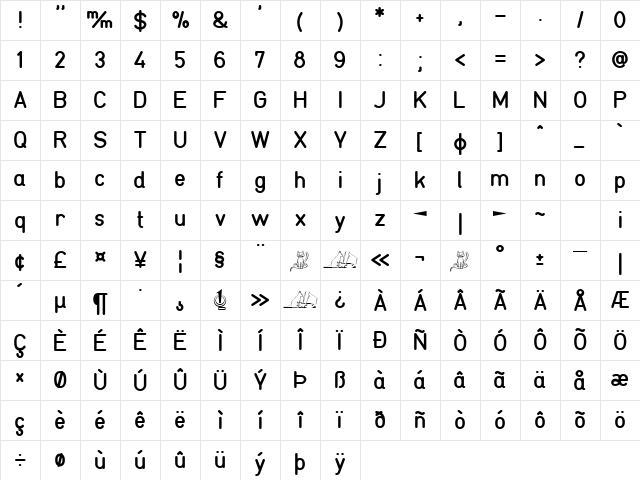
TGL 0-17 Regular
Foundry: Peter Wiegel
Designer: Peter Wiegel
Design Context for TGL 0-17
TGL 0-17 is a composed and adaptable typeface that performs quietly and consistently across a wide range of design contexts.